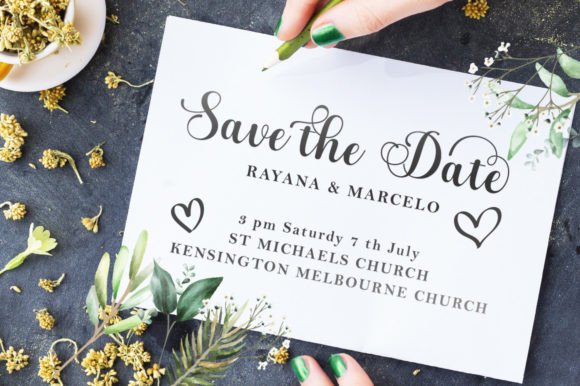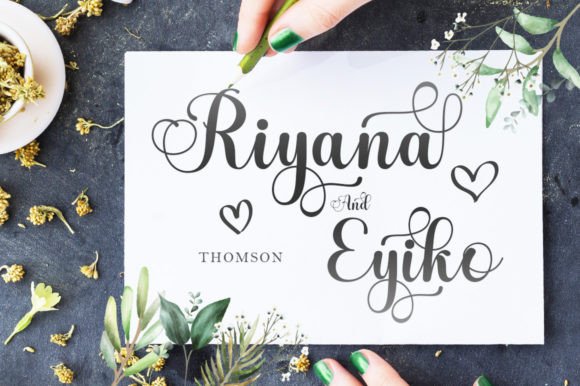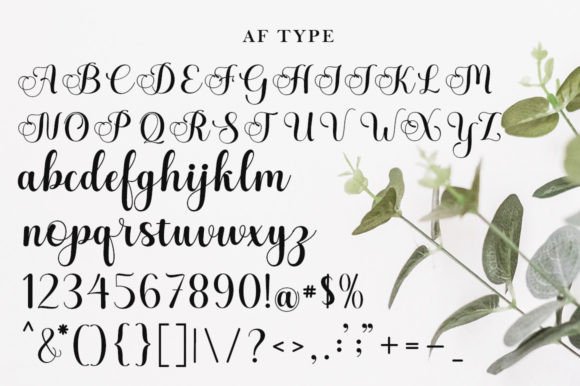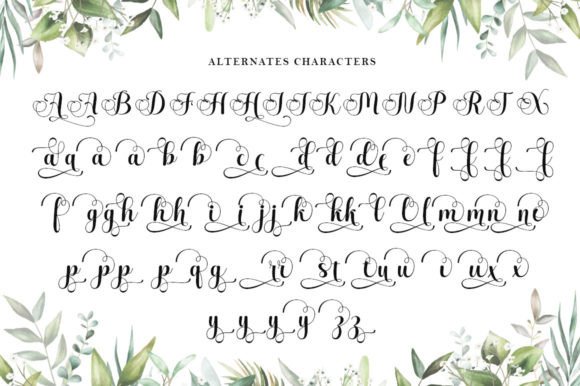
Introduction to Andeya Font
Andeya is a cute and casual handwritten font with an incredibly friendly feel.
Whether youโre looking for fonts for Instagram or calligraphy scripts for DIY projects, this font will turn any creative idea into a true piece of art This font is PUA coded which means you can access all the glyphs and swashes easily, this font is complete with language support.